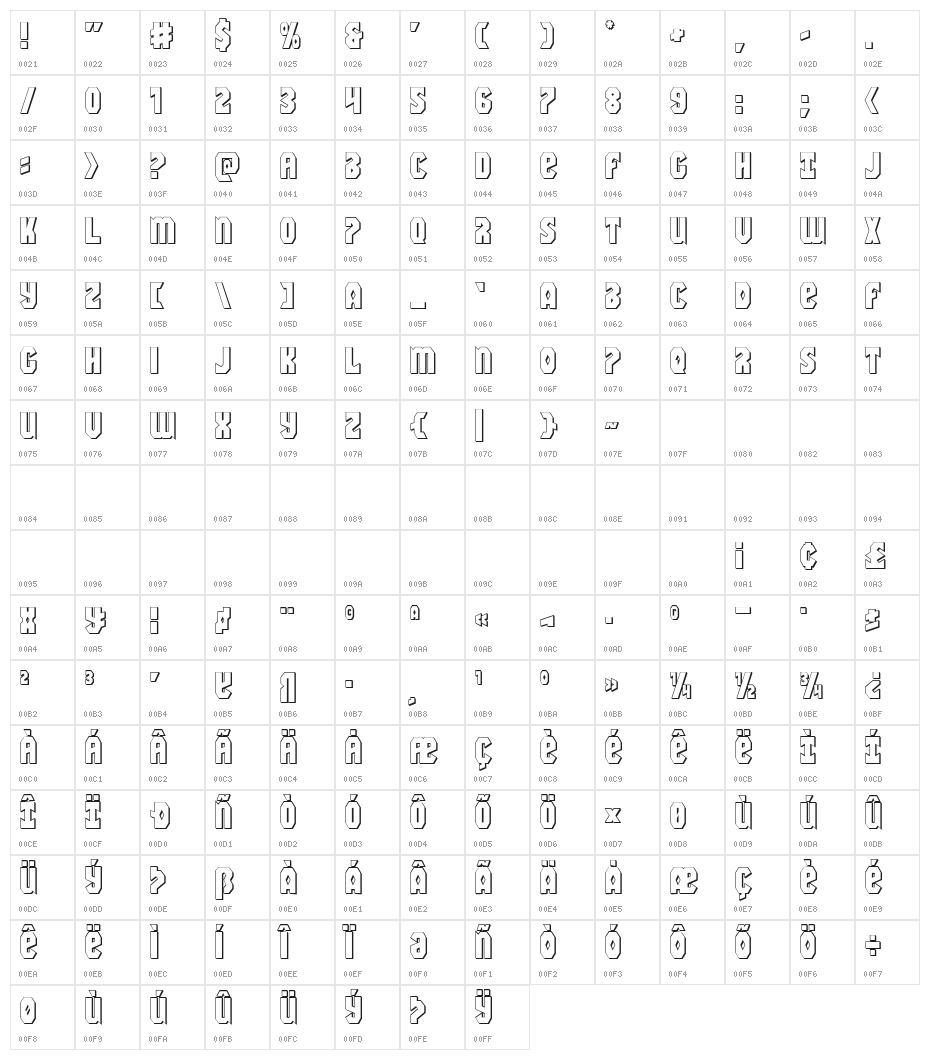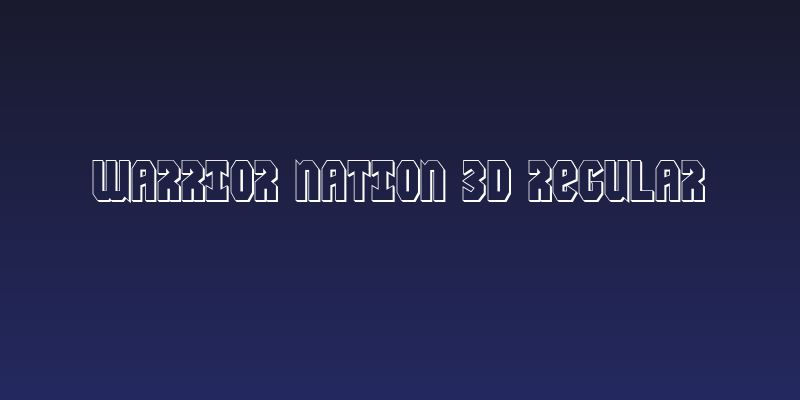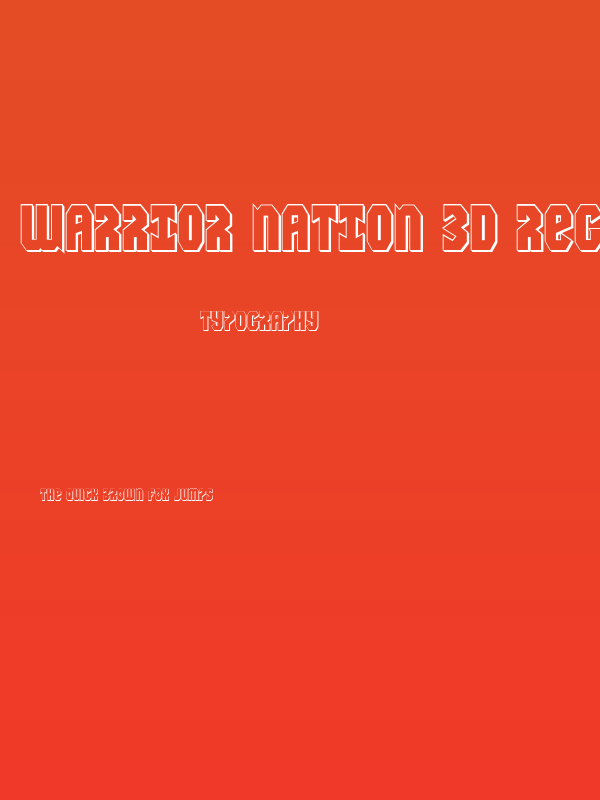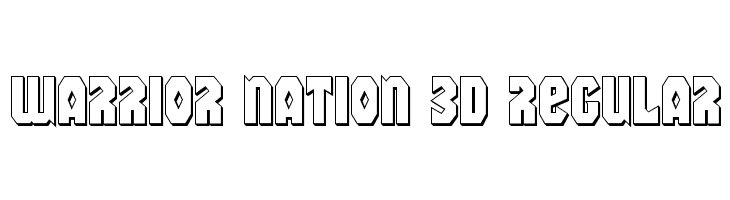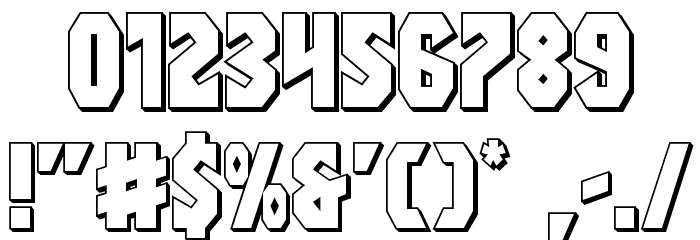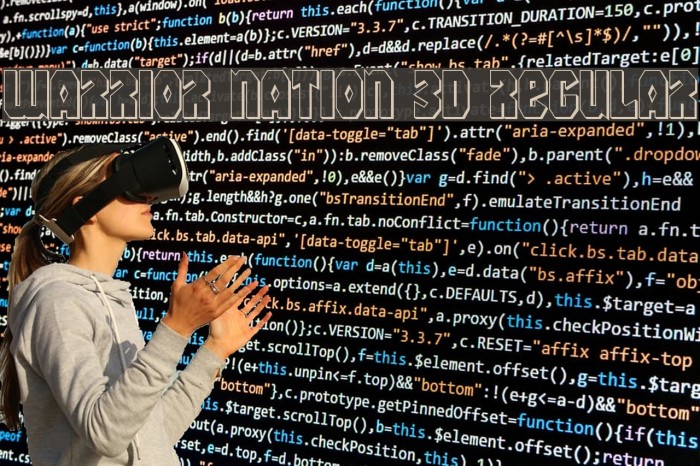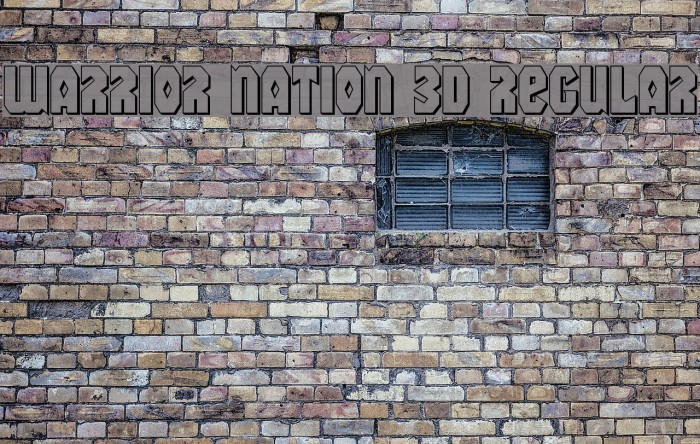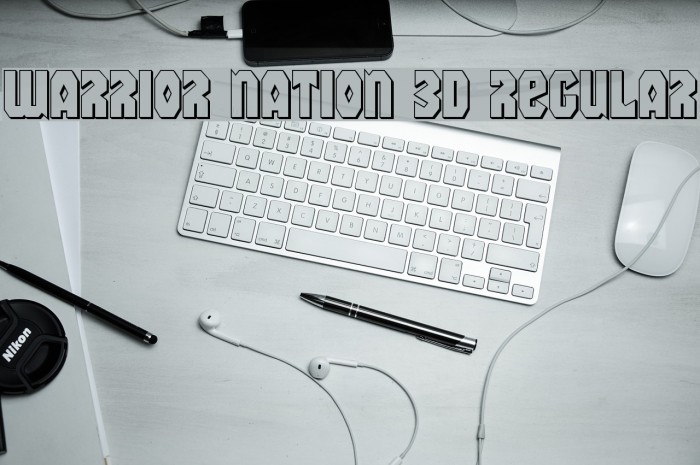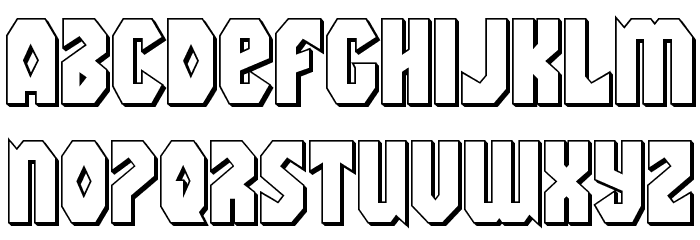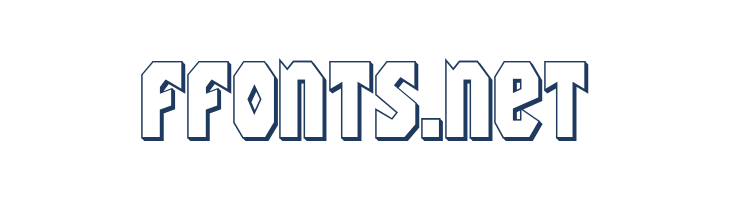
Warrior Nation 3D Regular Font
This font features a bold, three-dimensional style with a strong, geometric structure. The letters are outlined, giving them a striking, shadowed appearance that enhances their 3D effect. Each character is crafted with sharp angles and clean lines, creating a sense of depth and solidity. The uppercase letters are particularly prominent, with a consistent height and width that adds to the uniformity of the design. The numbers and special characters maintain the same bold and structured aesthetic, ensuring a cohesive look across all elements. This font is ideal for projects that require a strong visual impact and a modern, edgy feel.
| Proposed Projects | Ideal for video game titles, movie posters, sports team logos, and any project needing a dynamic, modern look. |